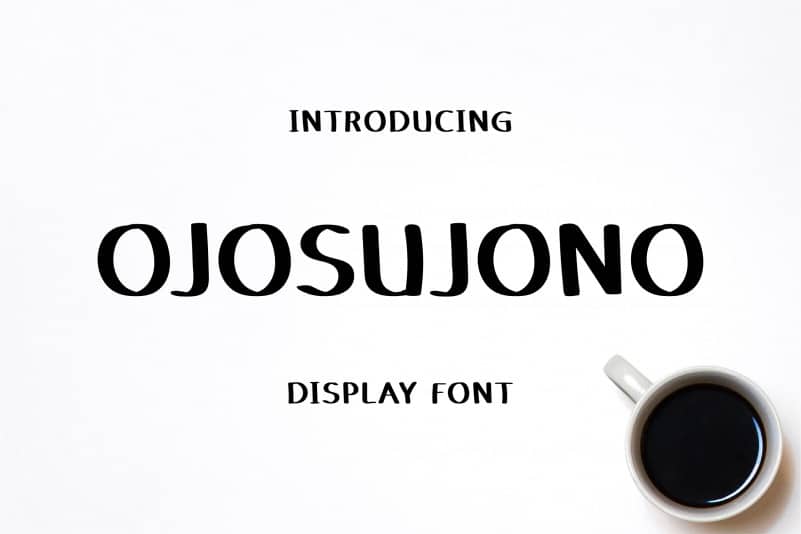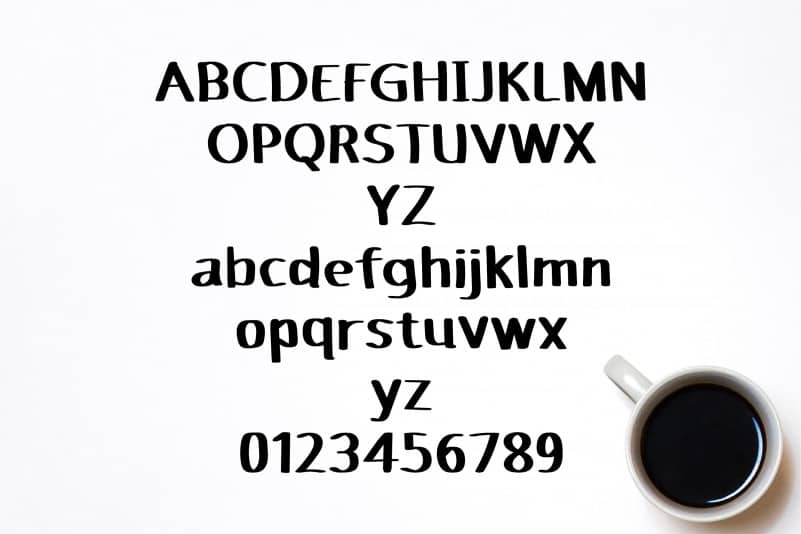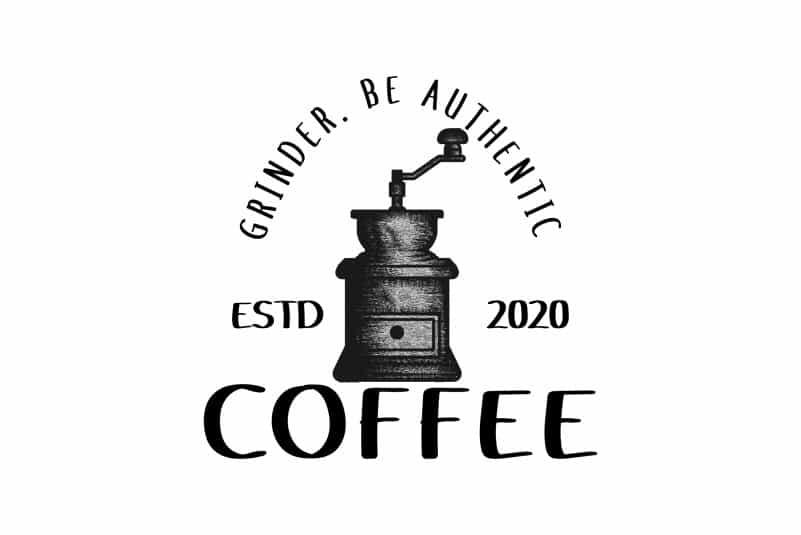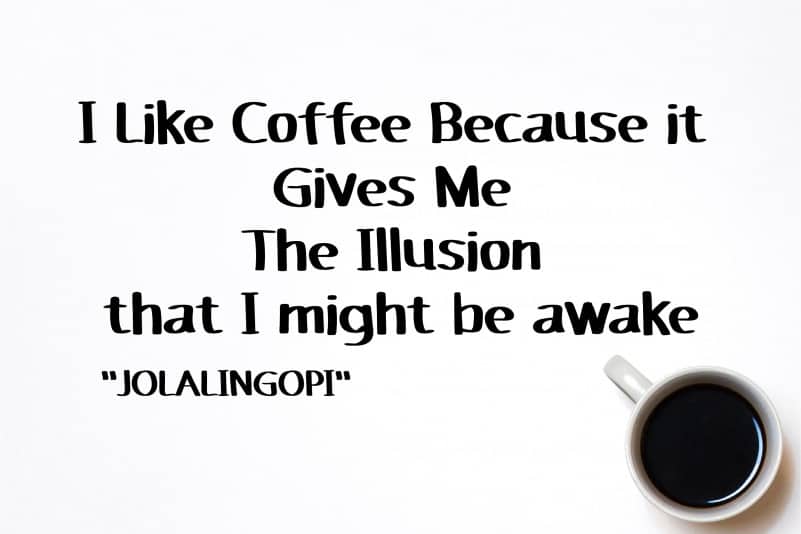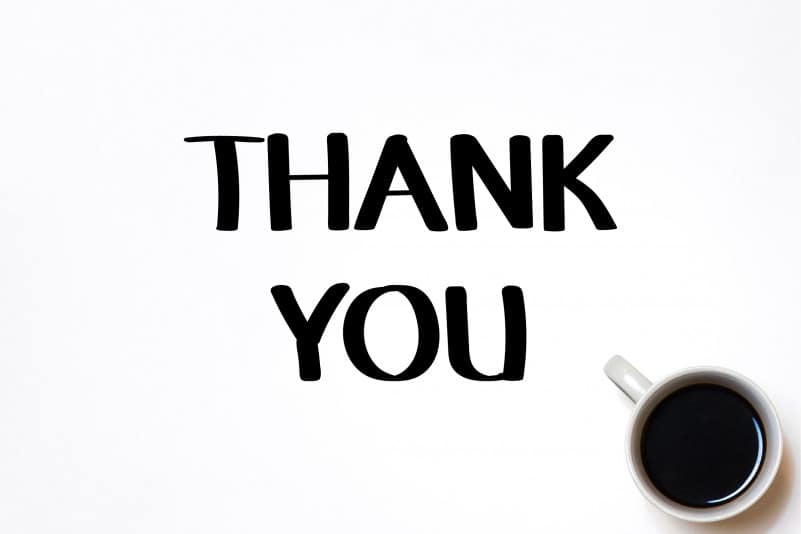
Ojosujono Display Font
Ojosujono Display Font is a fun and friendly handwritten font. It has a relaxed style and it will elevate a wide range of design projects to the highest level, be it branding, headings, wedding designs, invitations, signatures, logos, labels, and much more!